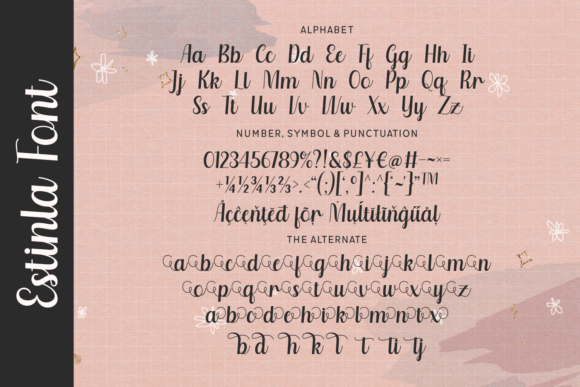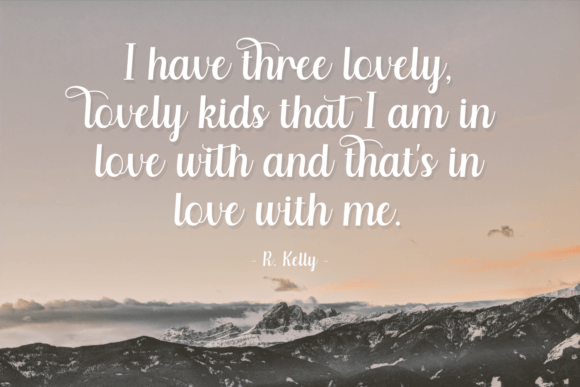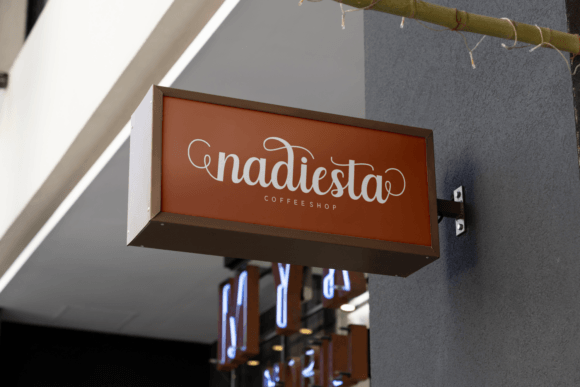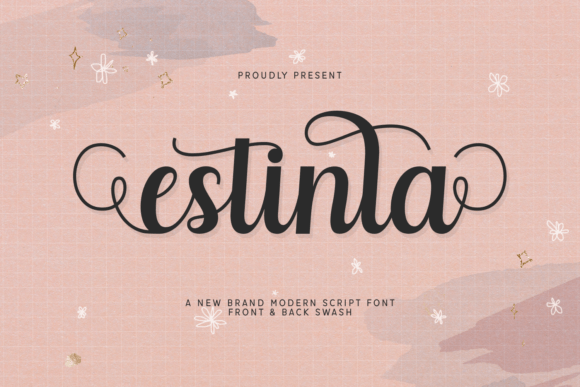
Introducing Estinla Font: Elevate Your Designs with Elegance and Flair
Are you a designer or crafter looking for a font that adds a touch of sophistication and artistry to your projects? Look no further than Estinla Font, a stunning script font that is sure to take your designs to the next level. With its elegant swashes, flowing curves, and decorative flourishes, Estinla Font is the perfect choice for creating beautiful and eye-catching text.
What is Estinla Font?
Estinla Font is a stylish script font that features elegant swashes at both the beginning and end of letters. This distinctive design element gives the font a unique and sophisticated look that is sure to turn heads. The font’s flowing curves and decorative flourishes add a touch of elegance and refinement, making it perfect for a wide range of creative projects.
Key Features of Estinla Font
- Elegant Swashes: Estinla Font features beautiful swashes at the beginning and end of letters, adding a touch of sophistication and artistry to your designs.
- Flowing Curves: The font’s flowing curves give it a smooth and elegant look that is perfect for creating beautiful text.
- Decorative Flourishes: Estinla Font’s decorative flourishes add a touch of whimsy and creativity to your designs, making them stand out from the crowd.
- Easy to Read: Despite its elegant and artistic design, Estinla Font is easy to read, making it perfect for use in a wide range of projects.
Uses for Estinla Font
Estinla Font is a versatile font that can be used in a wide range of creative projects. Here are just a few ideas to get you started:
- Invitations: Estinla Font is perfect for creating beautiful and elegant invitations for weddings, parties, and other special occasions.
- Greeting Cards: Add a touch of sophistication and artistry to your greeting cards with Estinla Font.
- Logos and Branding: Estinla Font can be used to create stunning logos and branding materials that will help your business stand out from the crowd.
- Signage: The font’s elegant design makes it perfect for use in signage, including store signs, billboards, and more.
Why Choose Estinla Font?
With so many fonts to choose from, why should you choose Estinla Font? Here are just a few reasons:
- Unique Design: Estinla Font’s unique design makes it stand out from other fonts, ensuring that your projects will be noticed.
- Elegant and Refined: The font’s elegant and refined design makes it perfect for creating sophisticated and artistic text.
- High-Quality: The font is high-quality and can be used in a wide range of projects, from print to digital.
Tips for Using Estinla Font
Here are a few tips for getting the most out of Estinla Font:
- Use it Sparingly: Estinla Font is a bold and elegant font, so use it sparingly to add emphasis and create visual interest.
- Experiment with Colors: The font looks great in a wide range of colors, so experiment to find the perfect color for your project.
- Pair it with Other Fonts: Estinla Font can be paired with other fonts to create a unique and visually interesting design.
Estinla Font is a stunning script font that is sure to elevate your designs and add a touch of elegance and artistry. With its elegant swashes, flowing curves, and decorative flourishes, it’s the perfect choice for creating beautiful and eye-catching text. Whether you’re a designer or crafter, Estinla Font is a must-have font that will take your projects to the next level.